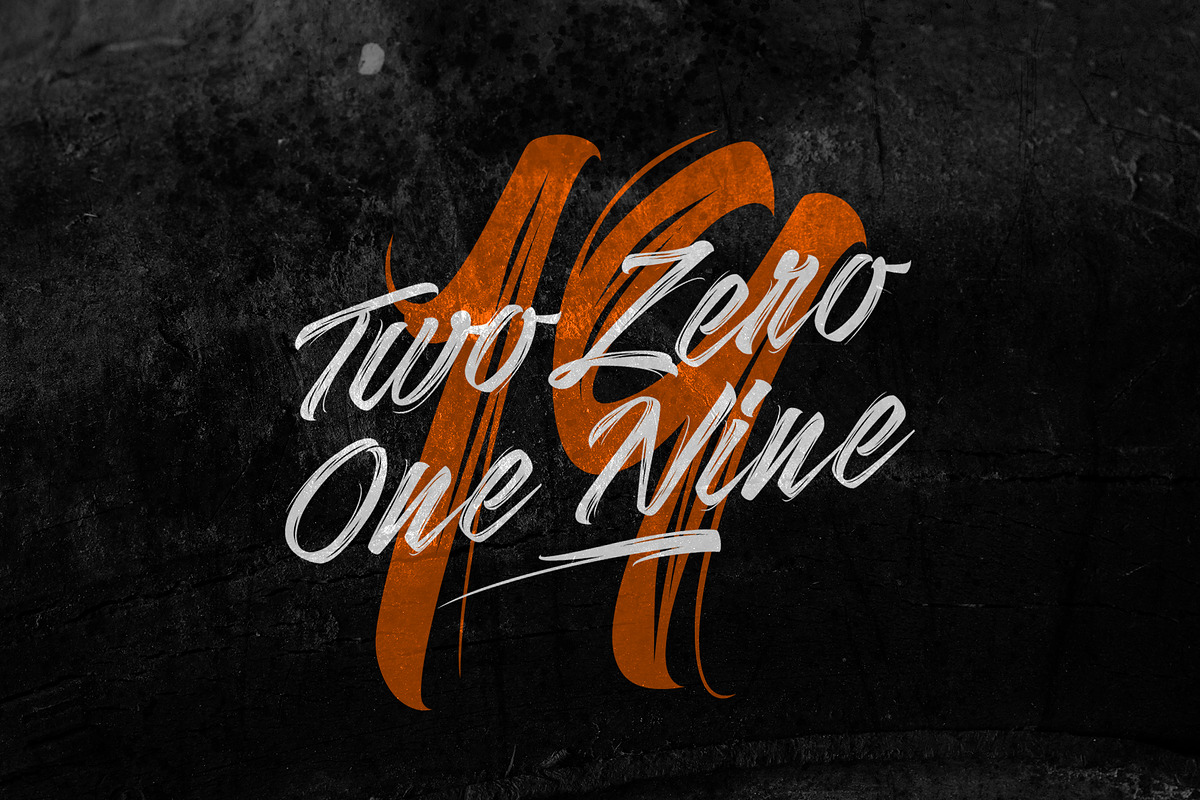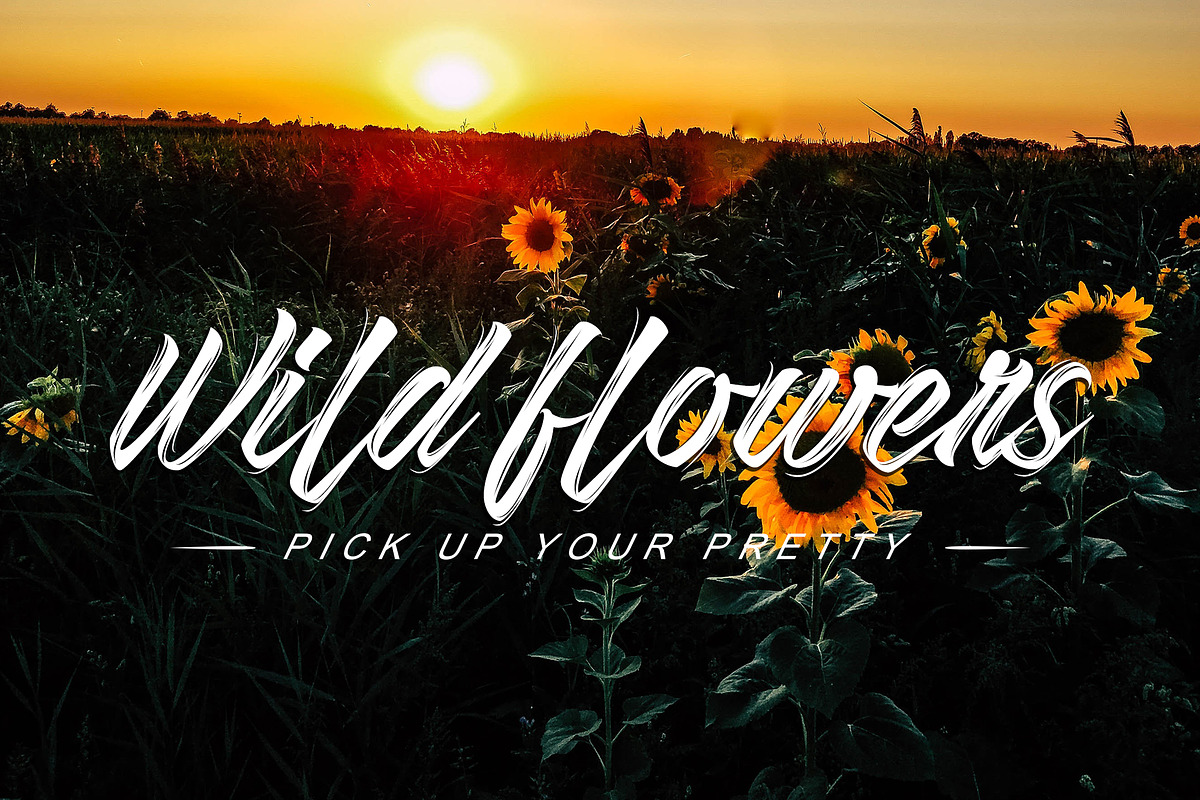
Destroit | Hand Brush Texture
Destroit font includes uppercase and lowercase letters, numerals, a large range of punctuation and ligatures. All lowercase letters include ending swashes and alternative font.